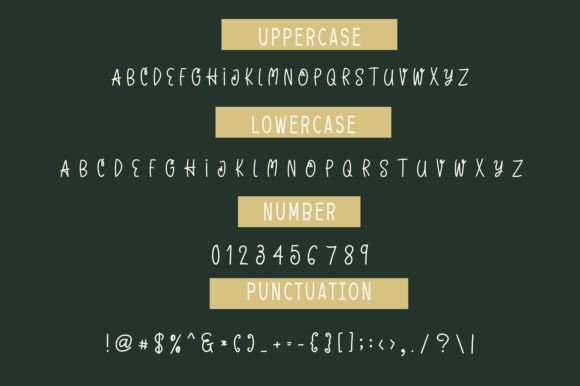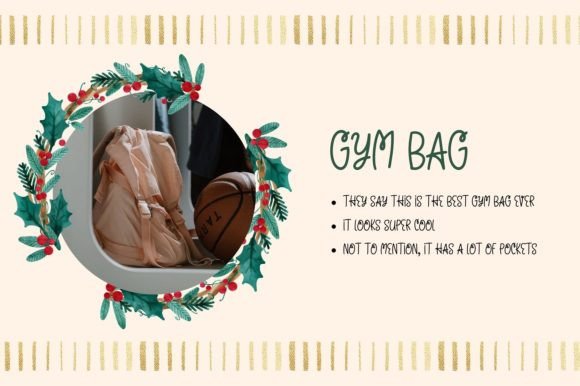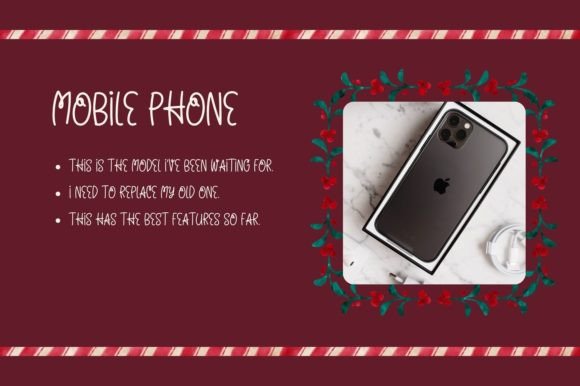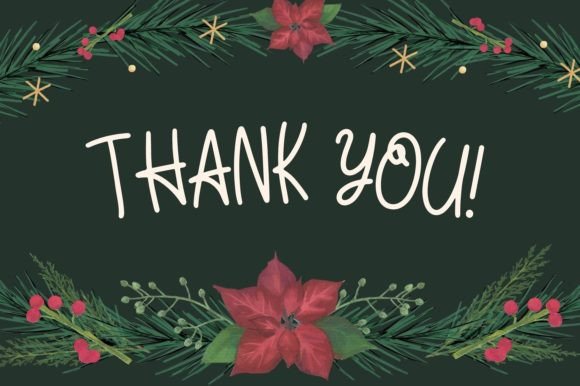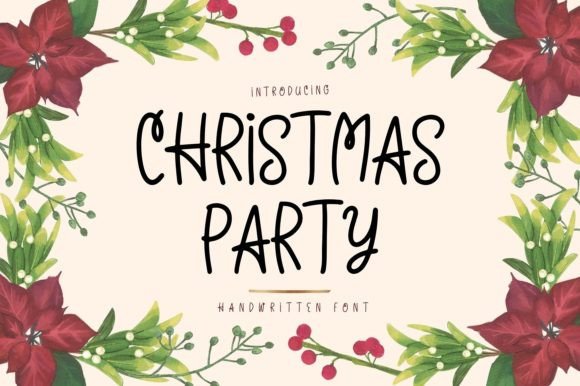
Deck the Halls with Christmas Party Font: A Festive Addition to Your Design Projects
It’s the most wonderful time of the year, and what better way to get into the holiday spirit than with a font that’s as merry and bright as Christmas itself? Introducing Christmas Party Font, a delightful and festive handwritten font that’s sure to add a touch of playfulness and authenticity to all your favorite design projects.
The Perfect Blend of Cuteness and Versatility
Christmas Party Font is a cute and charming handwritten font that’s been carefully crafted to bring a sense of joy and festivity to your designs. The lightness of its characters makes it an incredibly versatile font, suitable for a wide range of projects, from blog posts and logos to branding, ads, invitations, greeting cards, planners, photo albums, decorations, and much more.
What Makes Christmas Party Font So Special?
So, what sets Christmas Party Font apart from other fonts in its class? Here are just a few reasons why designers and crafters are falling in love with this festive font:
• Playfulness: Christmas Party Font embodies the playful and carefree spirit of the holiday season. Its bouncy, handwritten characters are sure to put a smile on your face and add a touch of whimsy to your designs.
• Authenticity: This font is the real deal – a genuine, handmade font that’s been crafted with love and care. Its unique character and charm make it the perfect choice for designers who want to add a personal touch to their work.
• Versatility: Whether you’re working on a festive holiday project or a more serious design, Christmas Party Font is up to the task. Its light and airy characters make it suitable for a wide range of applications, from digital designs to print materials.
Ways to Use Christmas Party Font in Your Designs
So, how can you use Christmas Party Font in your designs? The possibilities are endless! Here are just a few ideas to get you started:
• Blog Posts: Add a touch of festive fun to your holiday blog posts with Christmas Party Font. Use it to create eye-catching headings, titles, and captions that will put your readers in the holiday spirit.
• Logos and Branding: Create a memorable and festive logo for your business or brand with Christmas Party Font. Its playful and authentic character makes it perfect for businesses that want to add a personal touch to their branding.
• Invitations and Greeting Cards: Make your holiday invitations and greeting cards truly special with Christmas Party Font. Its charming and whimsical character is sure to delight your friends and family.
• Decorations and Crafts: Use Christmas Party Font to add a touch of festive fun to your holiday decorations and crafts. Create custom signs, banners, and garlands that will make your holiday celebrations truly unforgettable.